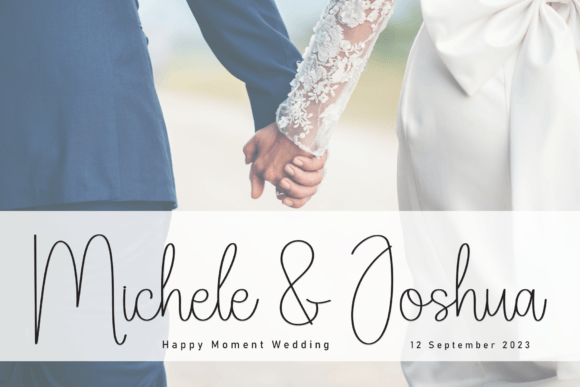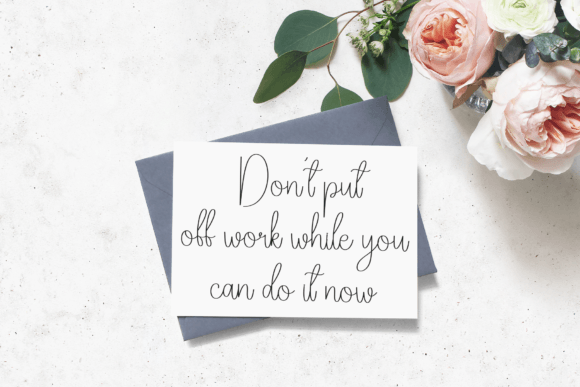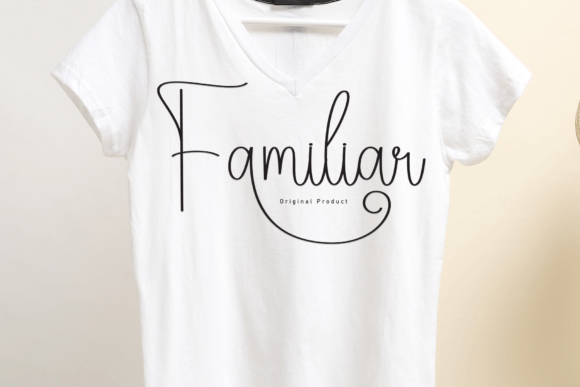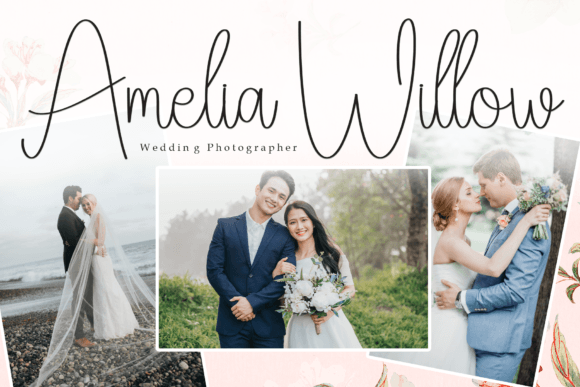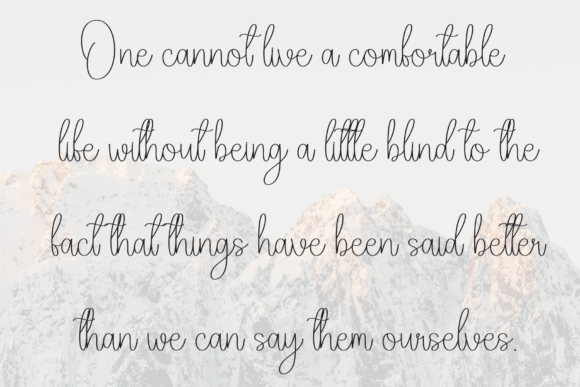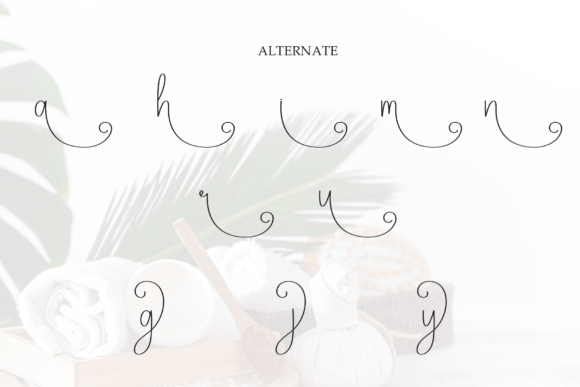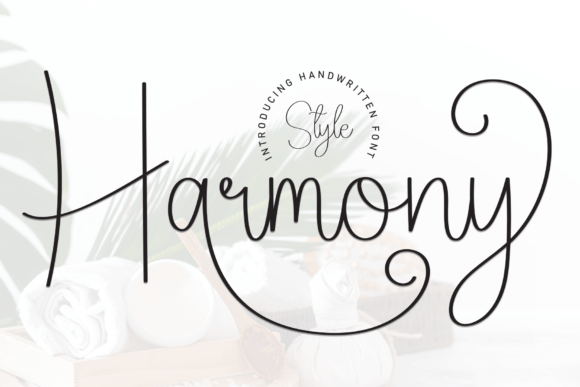
Introducing Harmony Font: The Sweet and Friendly Handwritten Display Font
Are you looking for a font that can add a touch of warmth and personality to your designs? Look no further than Harmony Font, a beautiful handwritten display font that is sure to delight. With its sweet and friendly vibe, Harmony Font is perfect for creating wedding invitations, cards, and other designs that require a fun and playful touch.
What Makes Harmony Font Special?
Harmony Font is a unique and charming font that is designed to bring a sense of joy and whimsy to your designs. Its handwritten style gives it a personal and approachable feel, making it perfect for designs that require a touch of warmth and personality. Whether you’re creating wedding invitations, birthday cards, or social media graphics, Harmony Font is sure to make your designs stand out.
Key Features of Harmony Font
- Cute and Fun: Harmony Font is a playful and fun font that is sure to add a touch of whimsy to your designs.
- Handwritten Style: With its handwritten style, Harmony Font has a personal and approachable feel that is perfect for designs that require a touch of warmth and personality.
- Versatile: Harmony Font is a versatile font that can be used for a wide range of designs, from wedding invitations and cards to social media graphics and more.
- Easy to Read: Despite its playful style, Harmony Font is easy to read and understand, making it perfect for designs that require a clear and concise message.
Uses for Harmony Font
Harmony Font is a versatile font that can be used for a wide range of designs, including:
- Wedding Invitations: Add a touch of romance and whimsy to your wedding invitations with Harmony Font.
- Cards: Create beautiful and personalized cards for birthdays, holidays, and other special occasions with Harmony Font.
- Social Media Graphics: Add a touch of personality to your social media graphics with Harmony Font.
- Party Decor: Use Harmony Font to create fun and playful party decor, such as banners and signs.
Why Designers and Crafters Love Harmony Font
Designers and crafters love Harmony Font for its unique and charming style, as well as its versatility and ease of use. With Harmony Font, you can create beautiful and personalized designs that are sure to delight your audience. Whether you’re a professional designer or a crafter, Harmony Font is a great addition to your font collection.
Tips for Using Harmony Font
- Pair with Other Fonts: Harmony Font pairs well with other fonts, such as sans serif fonts and script fonts.
- Use for Headings: Use Harmony Font for headings and titles to add a touch of personality to your designs.
In conclusion, Harmony Font is a sweet and friendly handwritten display font that is perfect for adding a touch of warmth and personality to your designs. With its cute and fun style, versatility, and ease of use, Harmony Font is a great choice for designers and crafters alike. Whether you’re creating wedding invitations, cards, or social media graphics, Harmony Font is sure to make your designs stand out.